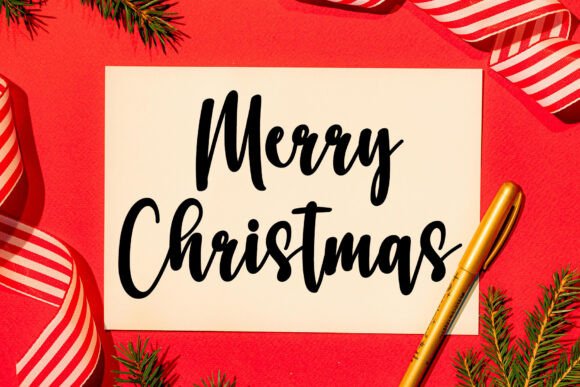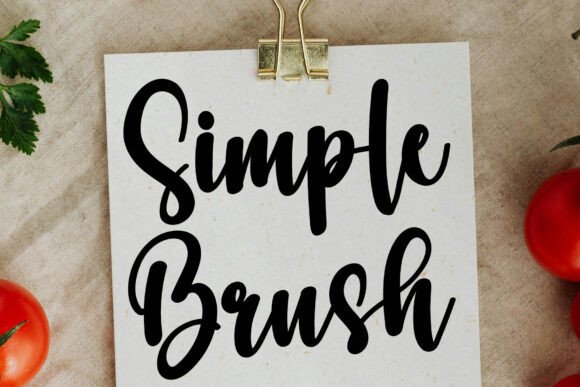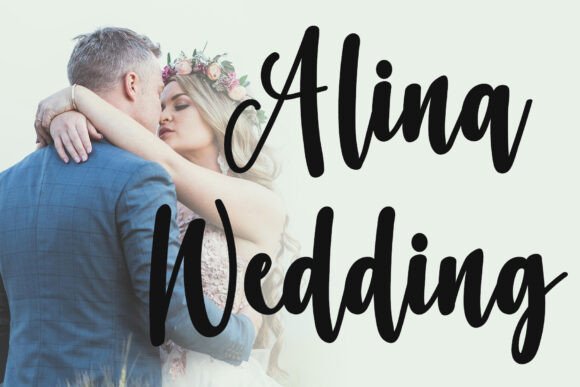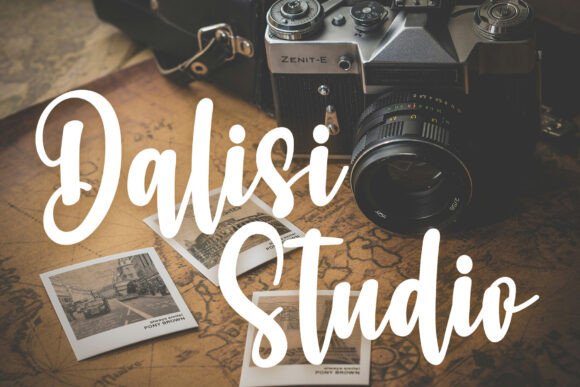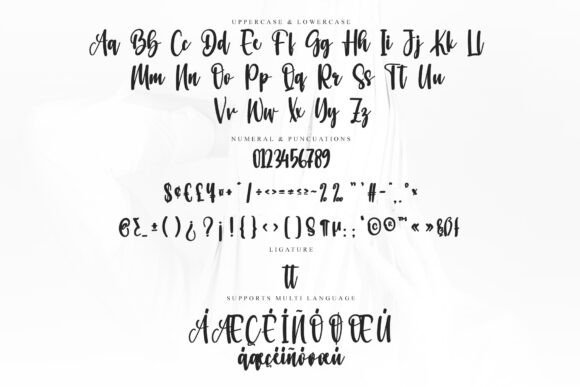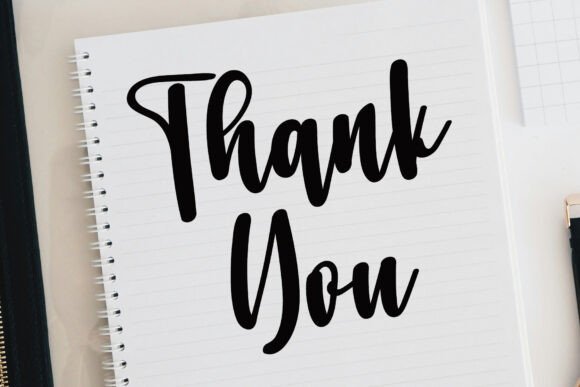
Introduction to Shelter Gnomes Font
As designers, we’ve all been there – staring at a blank canvas, trying to come up with the perfect idea for a holiday project. The pressure to create something truly special can be overwhelming, but sometimes all it takes is a single, sparkly element to bring our designs to life. For me, that element is often a font with just the right amount of flair and personality. And, in my opinion, one of the best fonts for the job is the Shelter Gnomes Font.
This festive and happy typeface is the perfect addition to any holiday-themed project, from greeting cards and gift labels to social media graphics and more. With its decorative elements and unique flair, Shelter Gnomes Font adds a touch of charm and whimsy to even the most basic designs. And, with its transparent background, it’s easy to layer over your favorite high-quality design resources for a truly one-of-a-kind look.
As a valuable design resource, Shelter Gnomes Font is a must-have for any designer looking to add a little extra magic to their creative projects. And, with its free download option, it’s easy to get started right away. Whether you’re a seasoned pro or just starting out, Shelter Gnomes Font is sure to become a go-to resource for all your holiday design needs.
Key Features of Shelter Gnomes Font
- Unique and whimsical design, perfect for creative projects that require a touch of magic.
- High-quality design with a transparent background, allowing for seamless integration into various design elements.
- Includes a range of characters, including uppercase and lowercase letters, numbers, and special characters.
- Perfect for designers, artists, and writers looking for a unique and creative font to elevate their projects.
Honest Review: Shelter Gnomes Font
I recently stumbled upon the Shelter Gnomes Font while working on a creative project and I must say, it’s been a game-changer. As a designer, I’m always on the lookout for high-quality design resources that can elevate my work and this font definitely delivers.
- Transparent background, making it easy to use with any image or design element.
- Unique and quirky design style that adds a touch of personality to any project.
- No extensive character set, which may be a issue for designers working on complex projects.
⚠️ Despite these limitations, I’m overall impressed with the Shelter Gnomes Font and would highly recommend it to designers looking for a unique and high-quality design resource. It’s perfect for adding a touch of whimsy to creative projects and is sure to stand out in any design.
To get the most out of the Shelter Gnomes Font, use it in combination with other design elements, such as images and graphics. Experiment with different font sizes, colors, and styles to create a unique and eye-catching design.
The Shelter Gnomes Font is perfect for a variety of creative projects, including logos, brochures, posters, and social media graphics. It’s also a great resource for designers looking for a free and high-quality design element.